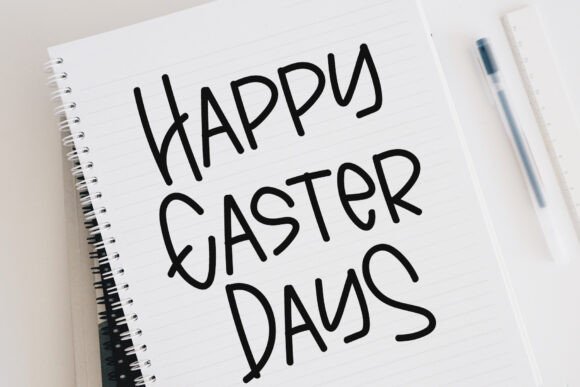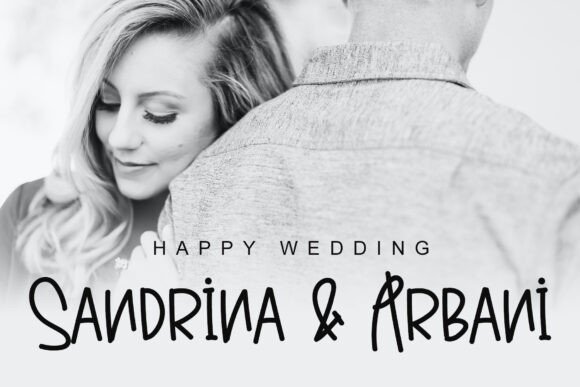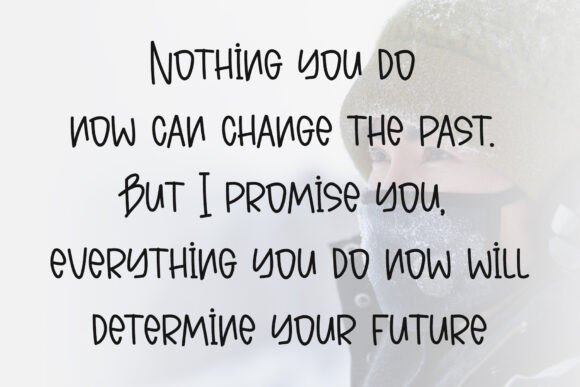
Introduction to Knight Bright Font
Have you ever found yourself stuck in the middle of a creative project, desperately searching for the perfect design element to bring your vision to life? We’ve all been there – the frustration of scrolling through endless options, only to settle for something that doesn’t quite fit. But what if I told you there’s a game-changing resource that can elevate your design to the next level? Enter the Knight Bright Font, a stunning and versatile handwriting font that’s about to become your new best friend.
As a valuable addition to any designer’s library, the Knight Bright Font offers a unique blend of high-quality, modern charm and friendly approachability. Whether you’re working on a free download project or need a reliable design resource, this beautifully crafted font is sure to shine. With its transparent background and endless creative possibilities, the Knight Bright Font is the perfect companion for any creative project that requires a touch of whimsy and personality.
Key Features of Knight Bright Font
- High-quality design resource ideal for creative projects, offering a unique and modern look.
- Includes a range of glyphs, including Latin, Cyrillic, and Greek alphabets, making it a versatile design resource.
- Supports various font styles, including bold, italic, and regular, to cater to diverse design needs.
- Designed with a clean and modern aesthetic, making it perfect for use in digital and print media, including logos, branding, and advertising.
Honest Review: Knight Bright Font
As a designer, I’m always on the lookout for high-quality design resources to elevate my creative projects. Recently, I stumbled upon the Knight Bright Font, and I must say, it’s been a game-changer. ✨
The Knight Bright Font is a beautifully crafted font that exudes elegance and sophistication. Its clean lines, crisp edges, and transparent background make it perfect for a wide range of designs, from modern logos to stylish typography. I particularly love how it works well with both light and dark backgrounds, allowing for maximum flexibility in my designs.
Here are some of the features that I appreciate about the Knight Bright Font:
- Clean lines and crisp edges for a polished look
While the Knight Bright Font is an excellent addition to any designer’s toolkit, I do have a few minor quibbles:
- Some users may find the font a bit too minimalist for their taste
- The font family is limited, which may not be suitable for designers who require a wide range of font styles
Overall, I’m thoroughly impressed with the Knight Bright Font. It’s a solid addition to any designer’s library, and I highly recommend it for anyone looking to elevate their creative projects.
Common Use Cases for Knight Bright Font
Knight Bright Font is perfect for a variety of creative projects, including presentations, social media graphics, and documents. Its transparent background makes it ideal for use on images and graphics, adding a touch of elegance to any design.